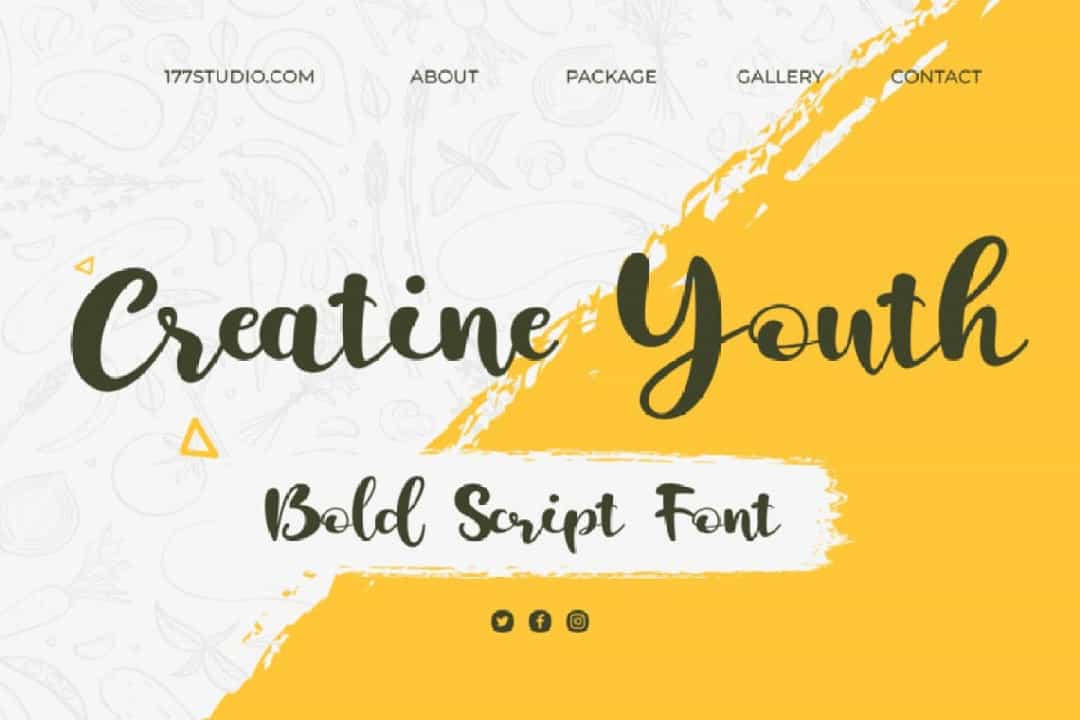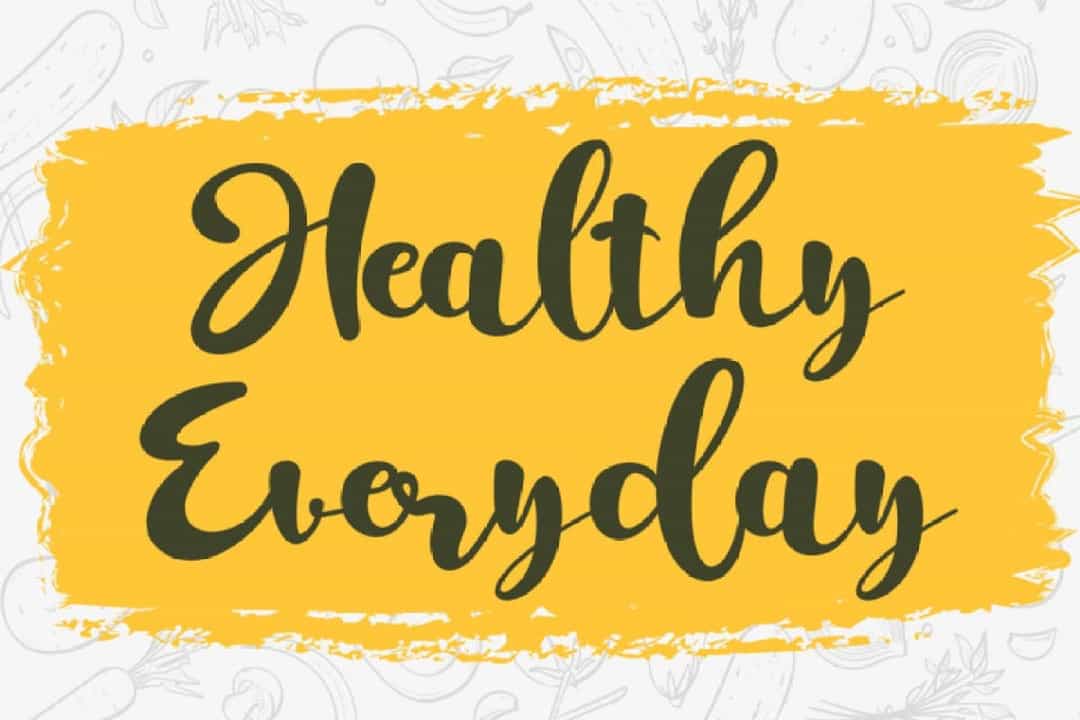
Discover Creatine Youth Font, part of the Handwritten Script collection—a versatile and unique font perfect for adding a personal touch to your projects. Download it for free and enjoy crafting designs with style, from invitations to social media posts. This font is available exclusively for personal use, giving you the freedom to create without limits. Unlock your creativity with Creatine Youth Font today!
Creatine Youth is a new attractive script font with contextual alternatives, which makes the characters sometimes look like handwritten ones and makes any project stand out. Why not give your designs that exquisite and homemade look and feel?